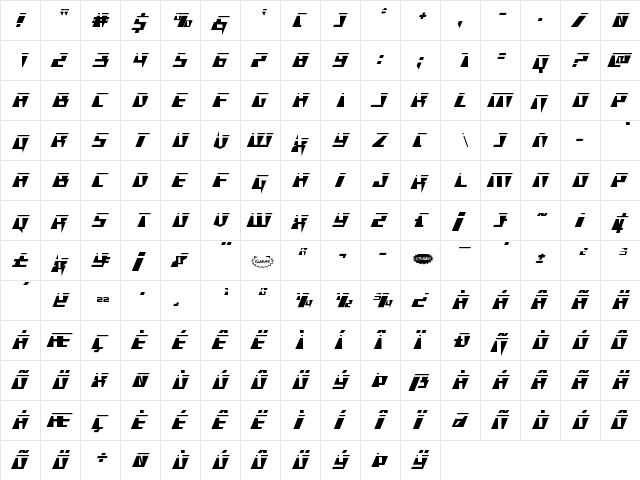
X-Racer Laser Regular
Design Context for X-Racer Laser Typeface
X-Racer Laser is a composed and adaptable typeface that performs quietly and consistently across a wide range of design contexts.